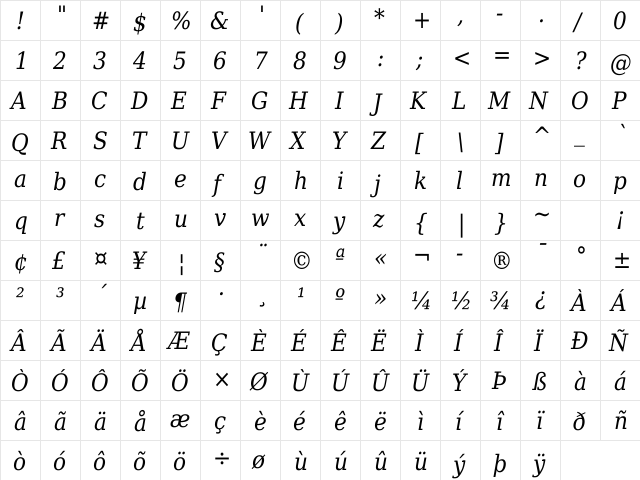
DejaVu Serif Condensed Italic Font Preview
| Foundry | DejaVu fonts team |
Design Context for DejaVu Serif Condensed Typeface
DejaVu Serif Condensed carries the refined structure of traditional serif typography, with bracketed terminals and considered proportions that communicate credibility and craft. The dynamic lean of this cut emphasises speed and emphasis in any layout. Its narrow stance lets it pack a punch even in space-constrained designs.